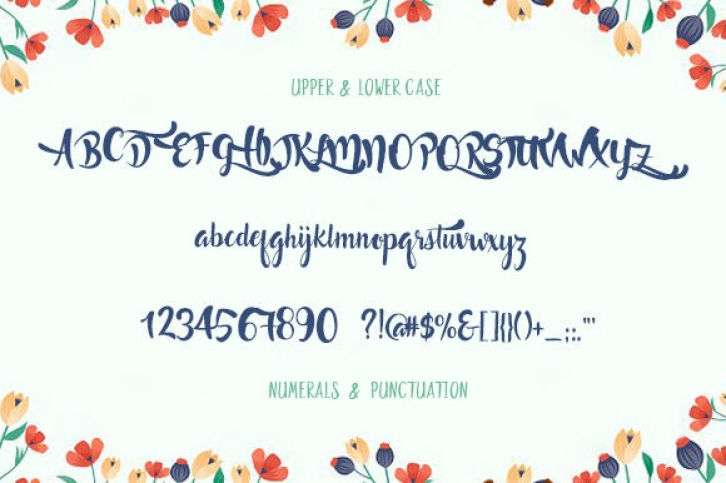
Hello Love-A Darling Cute Font Download
Take a first & second look at this darling & super cute "Hello Love" font. This sans serif modern font was created to match perfectly a diversity of design projects, including logos & branding, invitation designs, social media posts, advertisements & product designs and many more stylish design projects.